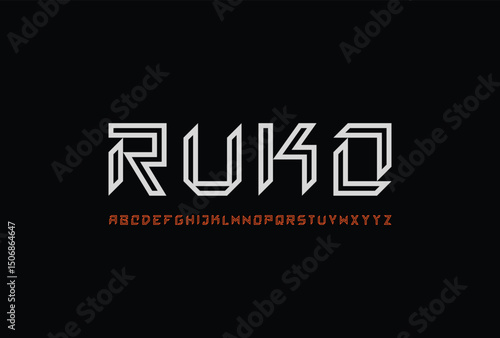
RUKO Font. Bold Geometric Display Typeface with Sharp Edges and Brutal Style. Strong Masculine Capital Letters for Logos, Sports, and Modern Branding. Vector Illustration.